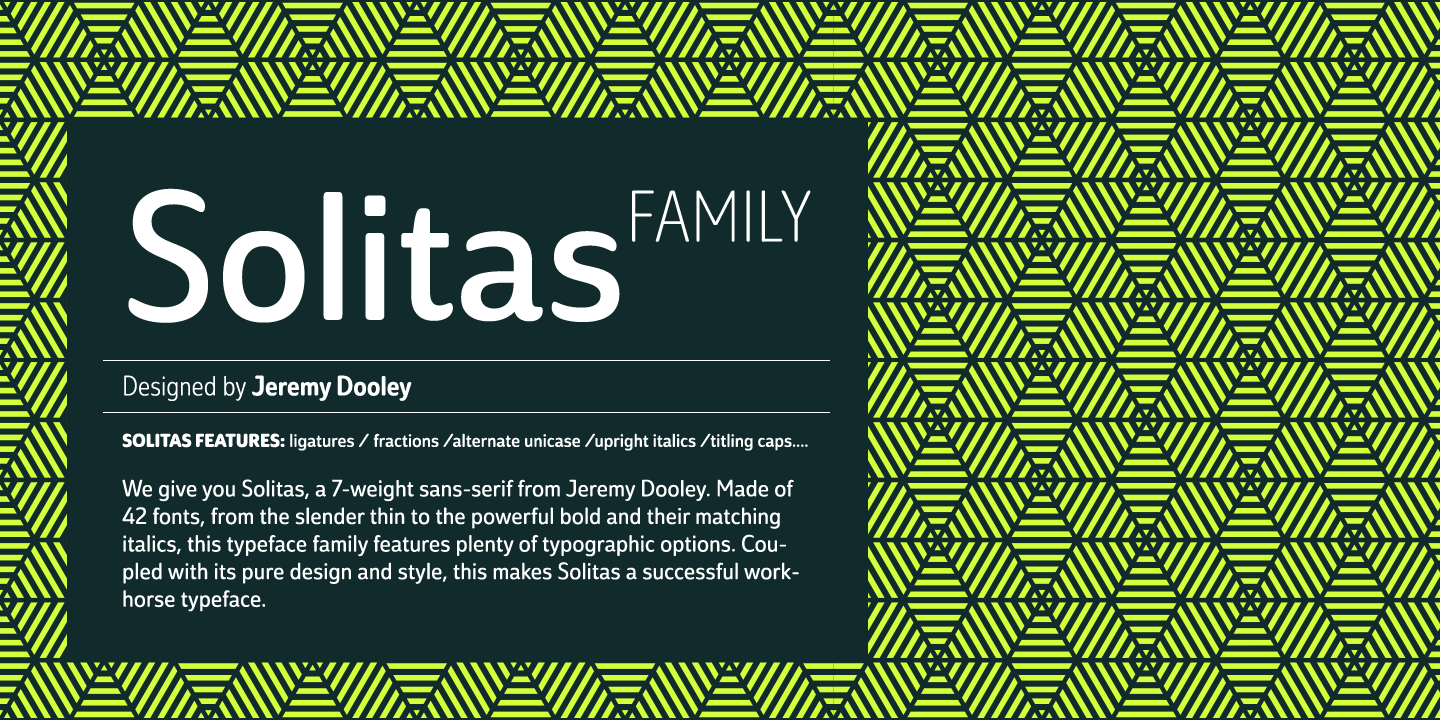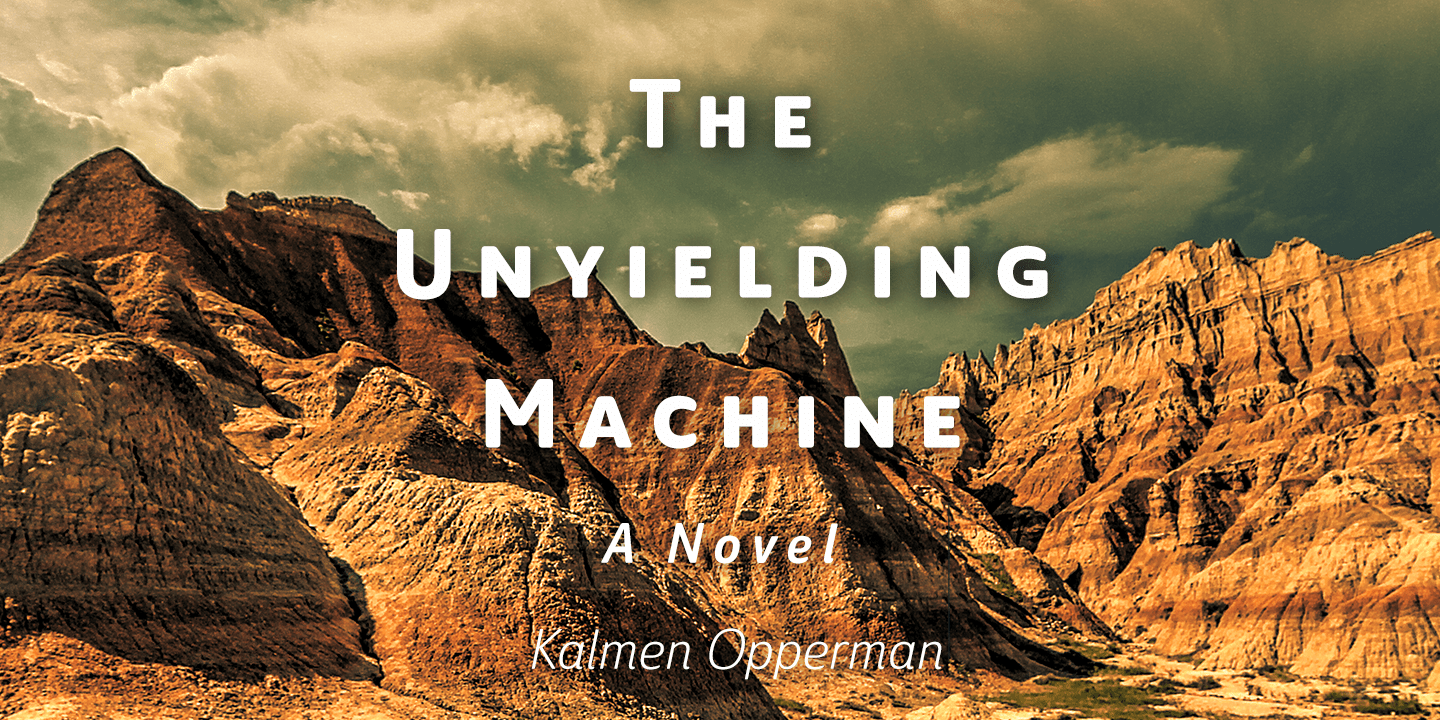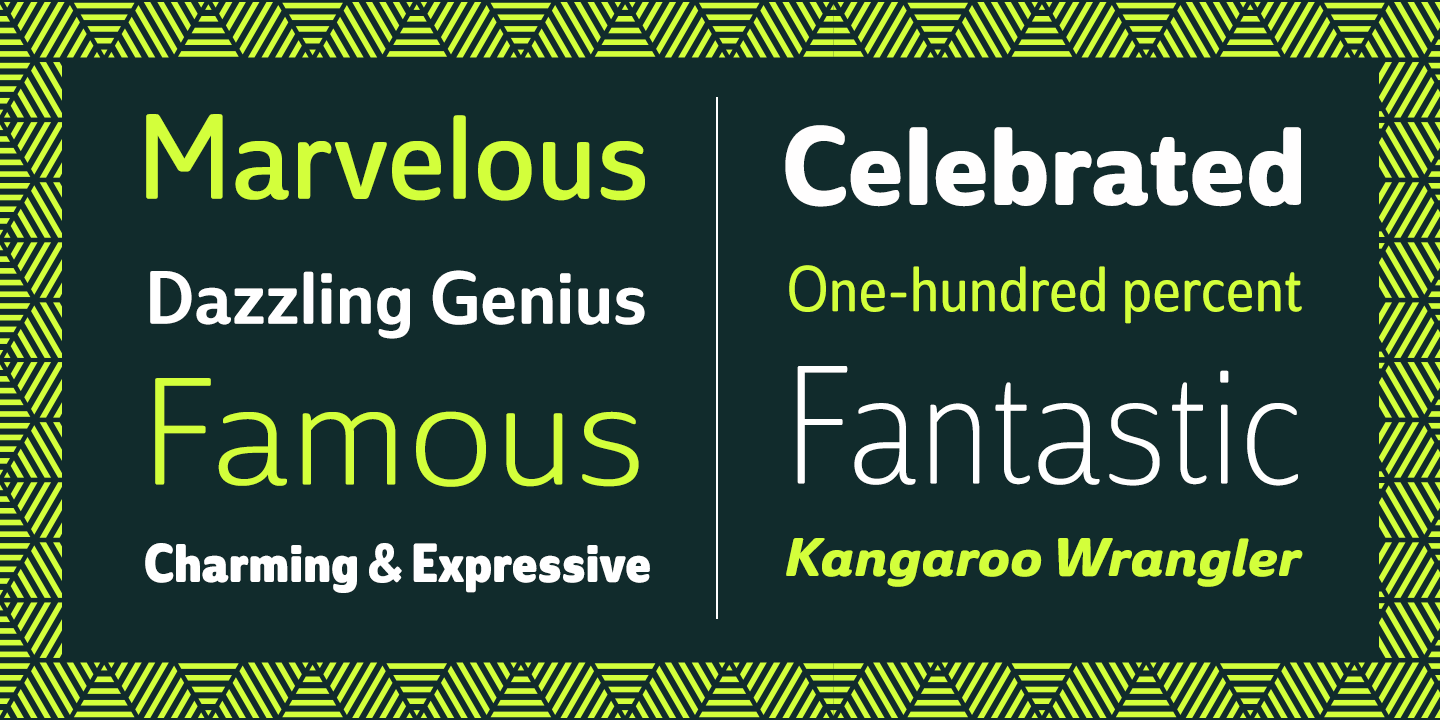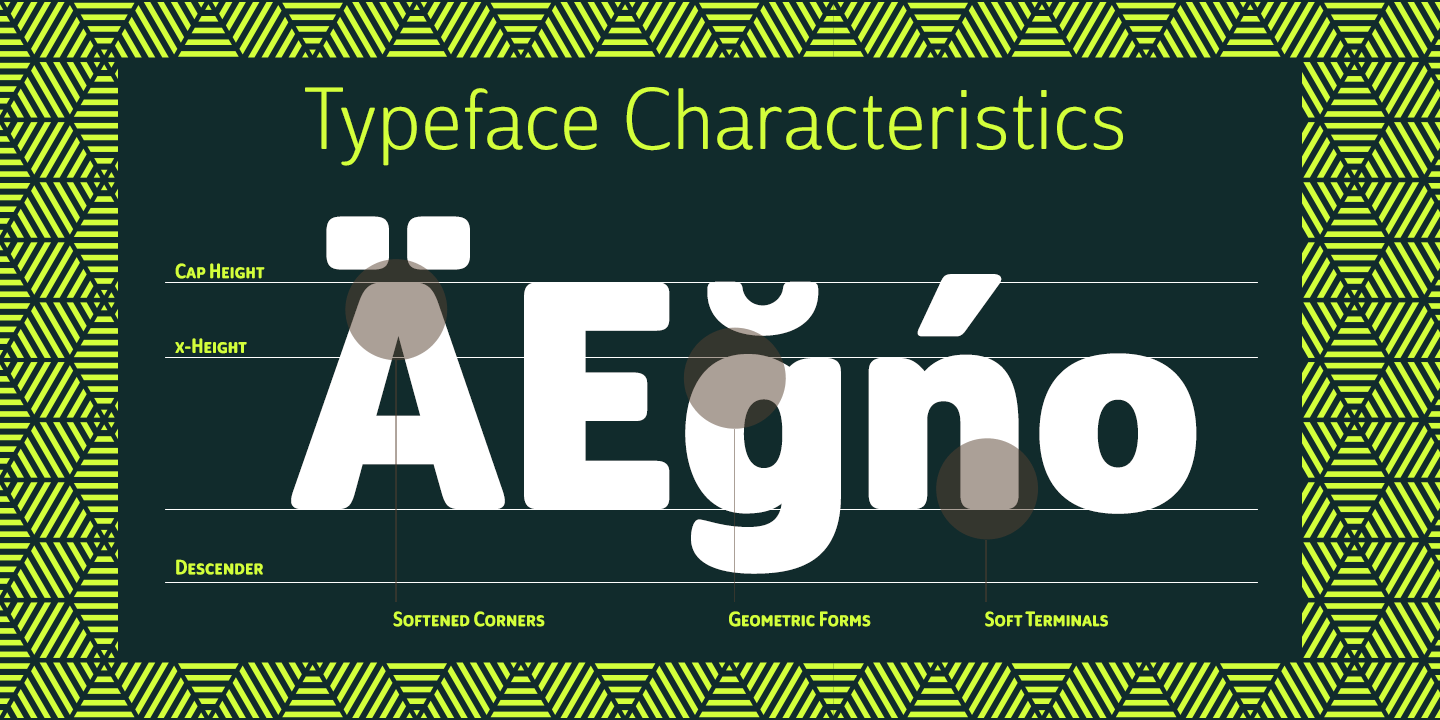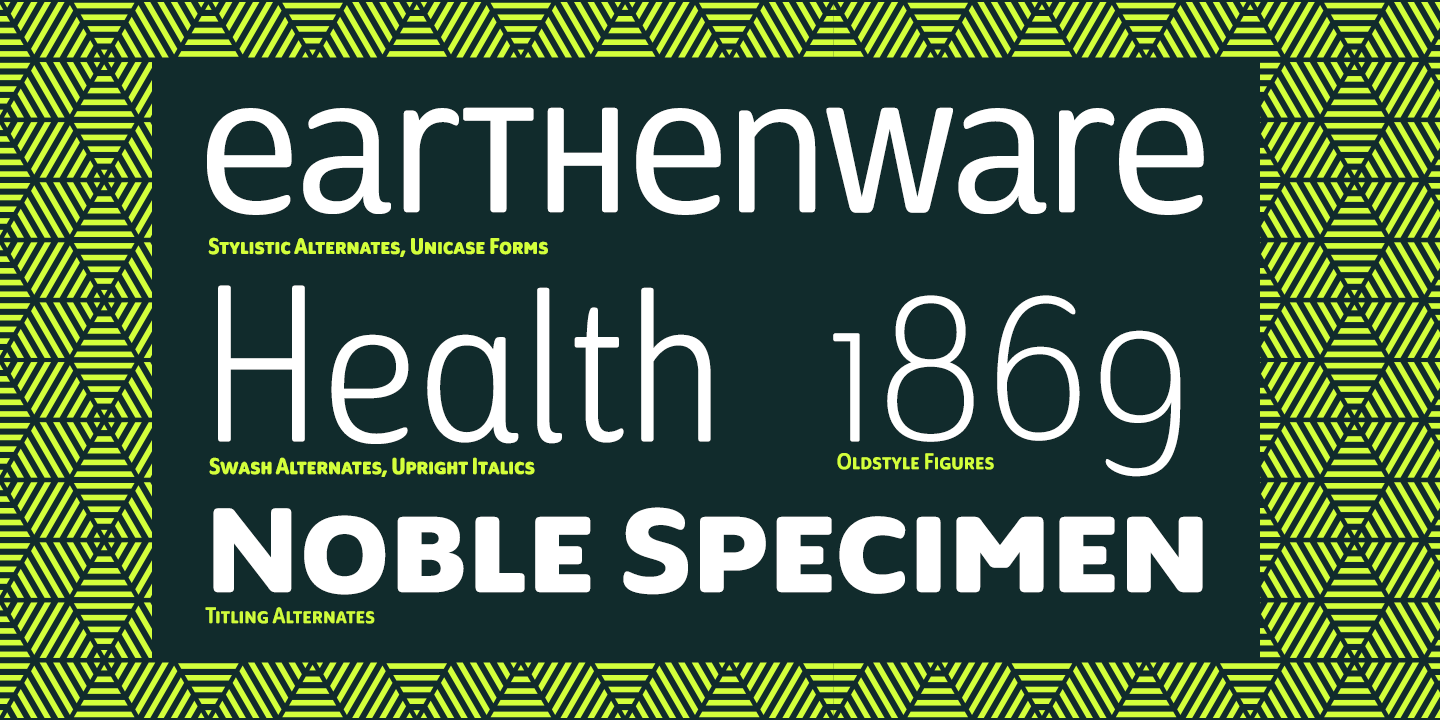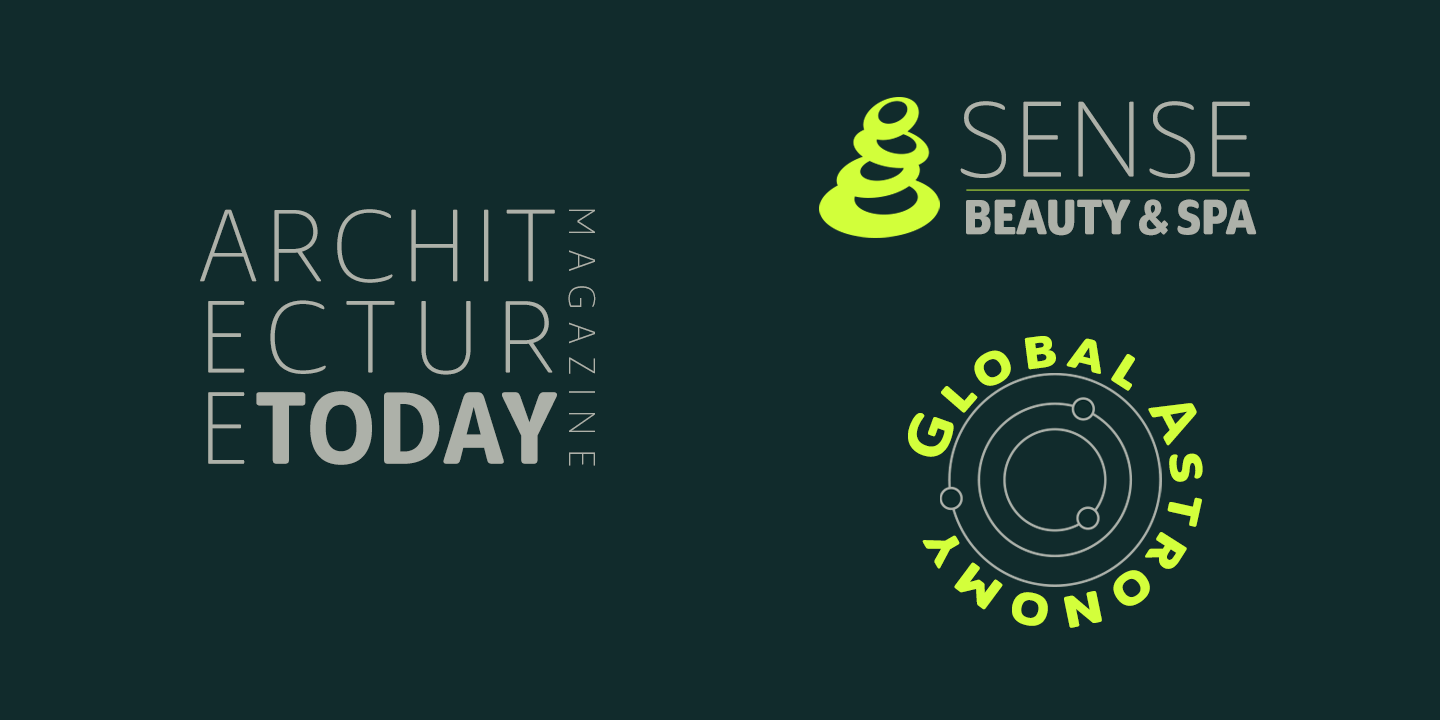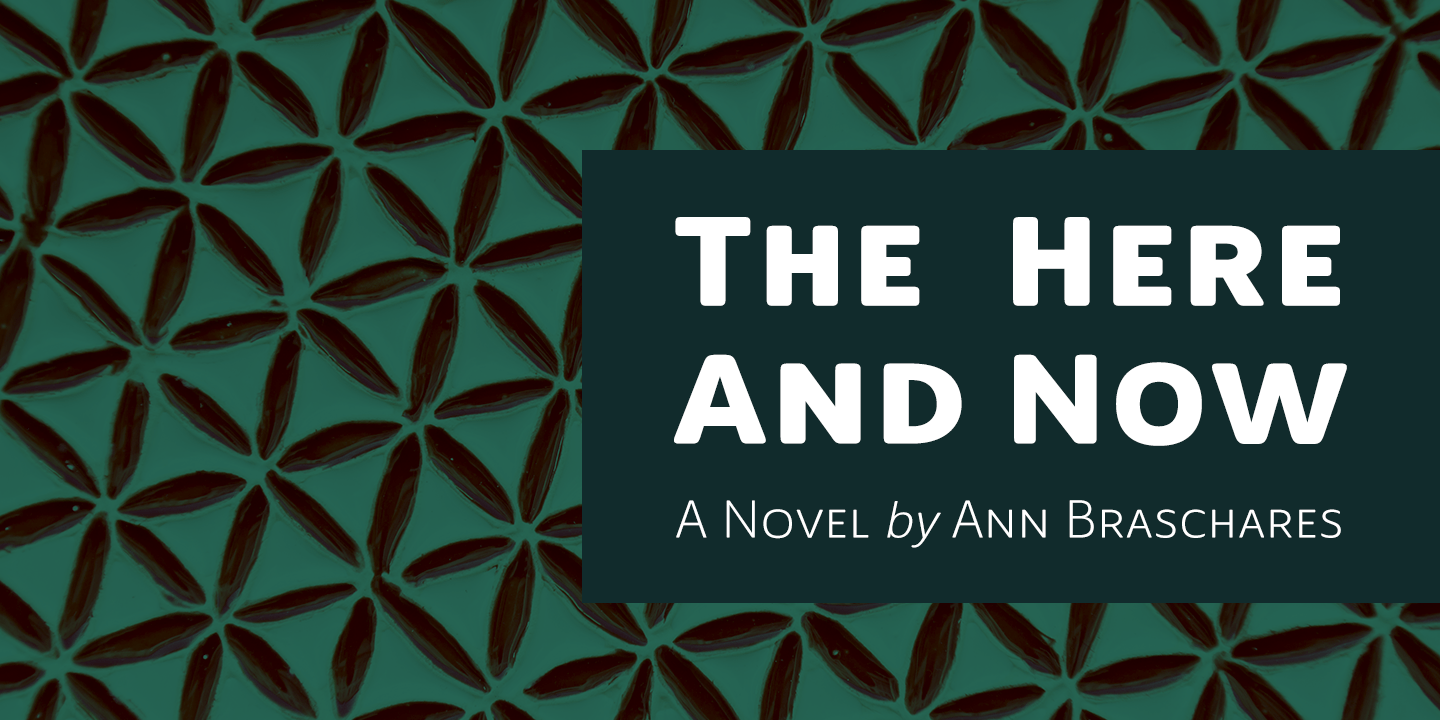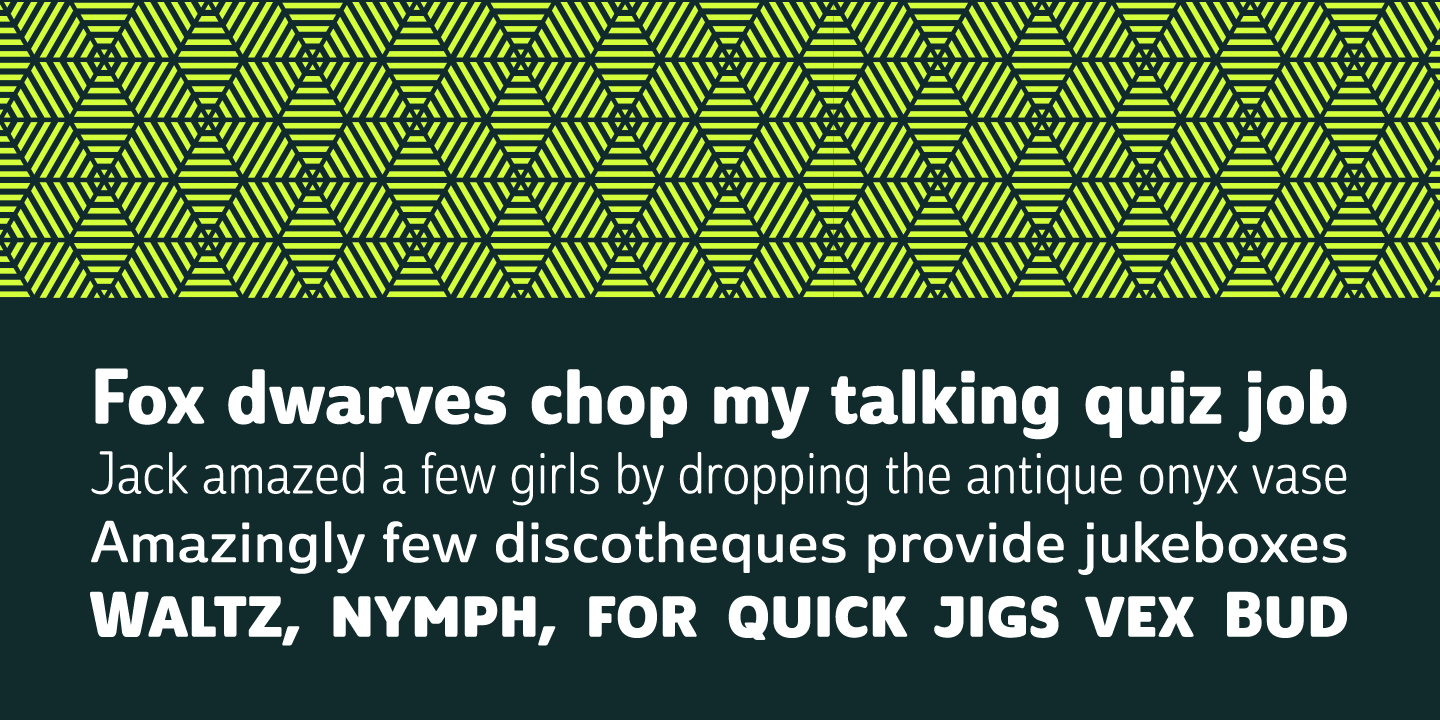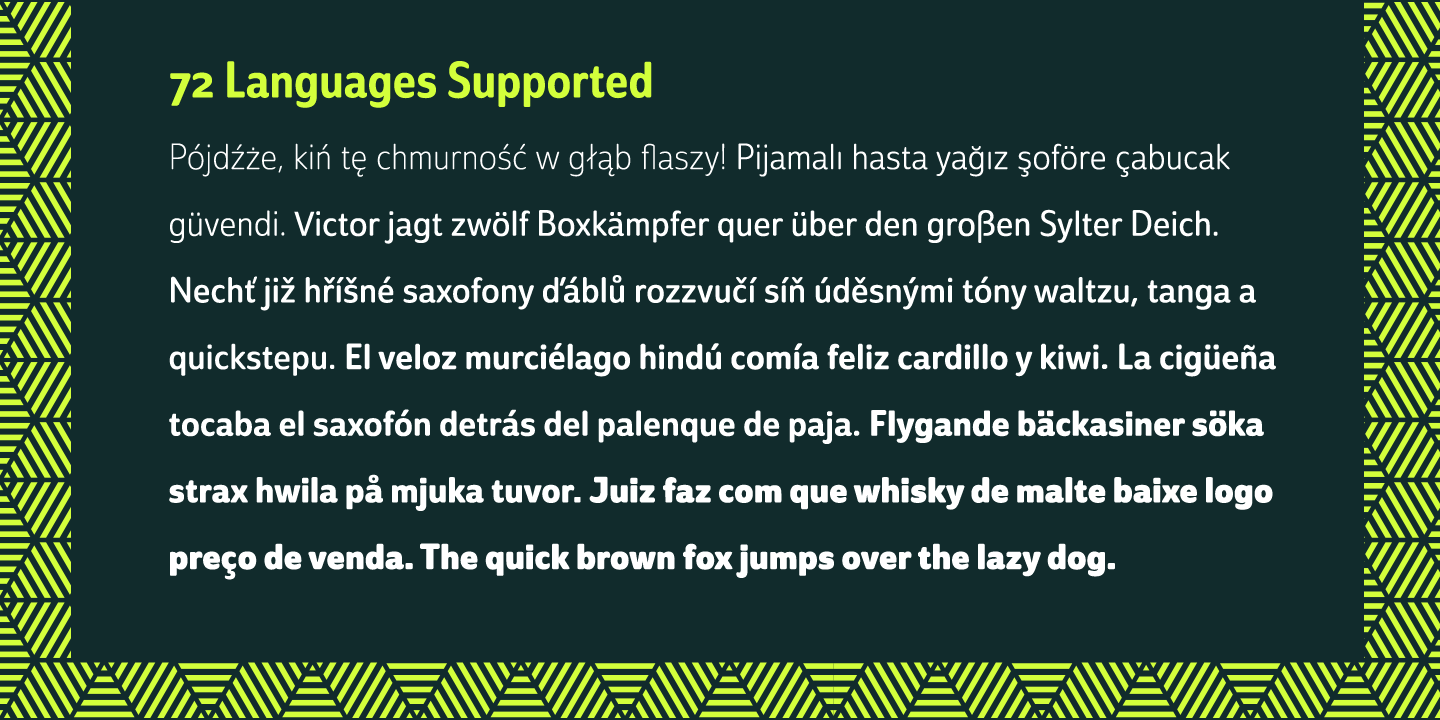
Solitas
You request perfection--that ideal equilibrium of compact dimensions and geometric underpinnings that leaves you with pure, clean lines of a highly legible sans.
We give you Solitas, a 7-weight sans-serif from Jeremy Dooley. Made of 42 fonts, from the slender thin to the powerful bold and their matching italics, this typeface family features typographic options including ligatures, fractions, alternate unicase, upright italics, and titling caps. Coupled with its pure design and style, this makes Solitas a successful workhorse typeface.
The result of simplification and reduction, Solitas is well-suited for the headlines and shorter texts of promotions, packaging, editorials and branding, both in print and on your website. That's it. It's that clean, that simple, and possibly that perfect for your next layout. Get it today.